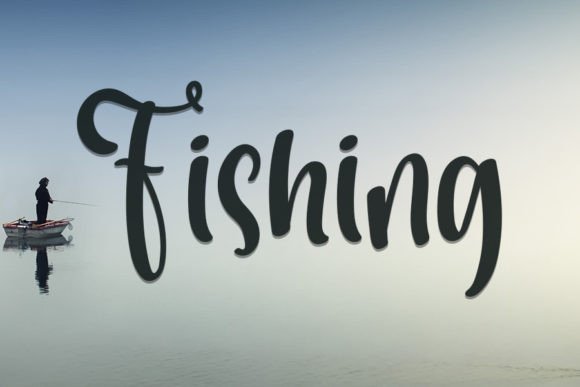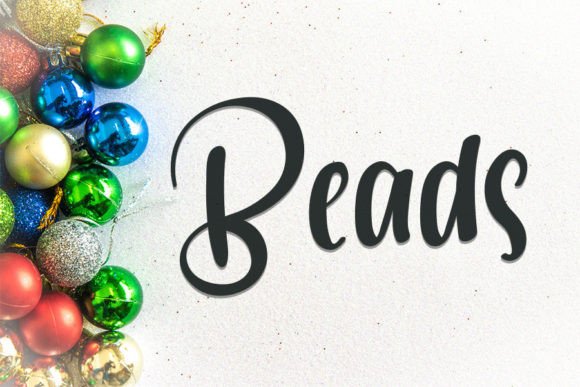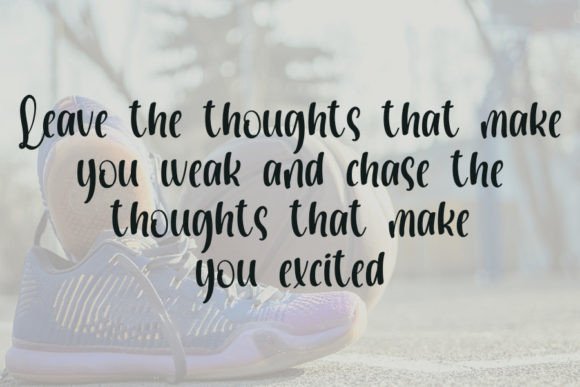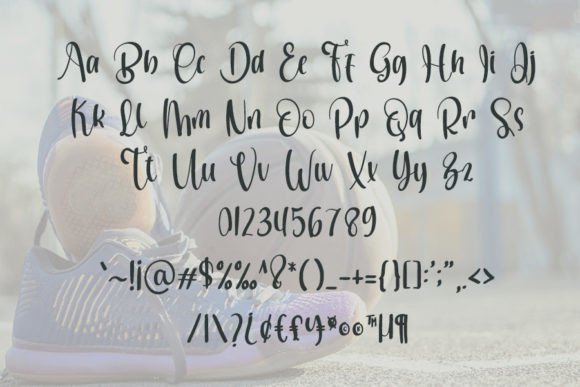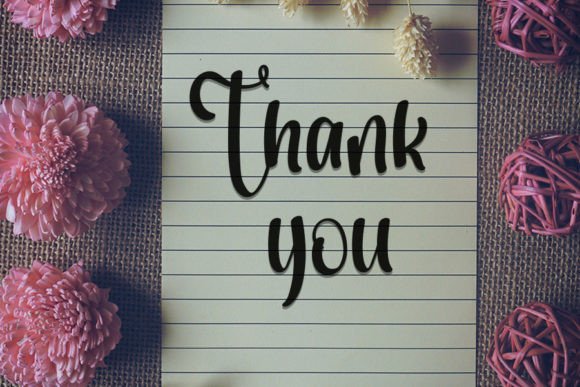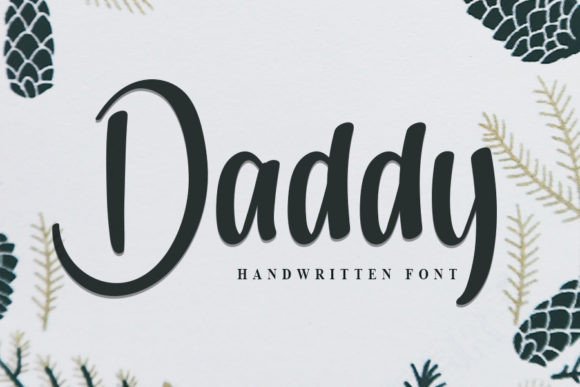
Daddy Font: Elevate Your Designs with a Cool Handwritten Style
In the world of typography, fonts play a crucial role in conveying the tone and personality of a design. For designers and crafters looking to add a touch of modern elegance to their projects, the Daddy Font is an excellent choice. This cool handwritten font boasts a modern vibe and spotless form, inspired by classic calligraphy. In this article, we’ll dive into the features and benefits of the Daddy Font, and explore how it can enhance the beauty of your designs.
The Inspiration Behind Daddy Font
The Daddy Font is a carefully crafted typeface that draws inspiration from traditional calligraphy. Its creator aimed to strike a balance between modernity and classic elegance, resulting in a font that is both fresh and timeless. The font’s design is characterized by its balanced and varied strokes, which are neither too thin nor too thick. This thoughtful design ensures that the font is versatile and can be used in a wide range of applications.
Key Features of Daddy Font
• Modern Vibe: The Daddy Font has a distinctly modern feel, making it perfect for designers who want to add a contemporary touch to their work.
• Spotless Form: The font’s clean and precise lines ensure that it looks great in both digital and print formats.
• Balanced and Varied: The font’s strokes are carefully balanced to create a sense of harmony and visual flow.
• Inspired by Classic Calligraphy: The Daddy Font’s roots in traditional calligraphy give it a timeless quality that works well in a variety of design contexts.
Benefits of Using Daddy Font
So, why should designers and crafters choose the Daddy Font for their projects? Here are just a few benefits:
• Enhances Readability: The font’s clear and legible design makes it easy to read, even at small sizes.
• Adds Emotional Connection: The handwritten nature of the font creates a sense of warmth and personality, helping to connect with your audience.
• Versatile: The Daddy Font can be used in a wide range of applications, from branding and advertising to packaging and digital media.
• Unique and Creative: The font’s distinctive design ensures that your work stands out from the crowd and showcases your creativity.
Using Daddy Font in Your Designs
So, how can you incorporate the Daddy Font into your designs? Here are a few ideas to get you started:
• Branding and Logo Design: Use the Daddy Font to create a unique and memorable logo that reflects your brand’s personality.
• Digital Media: The font’s clean design makes it perfect for use in digital media, such as social media graphics, blog posts, and website headers.
• Packaging and Print: The Daddy Font’s spotless form ensures that it looks great in print, making it ideal for use on packaging, business cards, and other marketing materials.
• Crafting and DIY Projects: The font’s handwritten nature makes it perfect for use in crafting and DIY projects, such as handmade cards, gift tags, and scrapbooking.
Font Name Daddy Font
Author NYA Letter
In conclusion, the Daddy Font is a versatile and stylish typeface that can elevate the beauty of your designs. Its modern vibe, spotless form, and balanced strokes make it perfect for a wide range of applications, from branding and advertising to packaging and digital media. Whether you’re a designer, crafter, or DIY enthusiast, the Daddy Font is an excellent choice for anyone looking to add a touch of elegance and personality to their work.